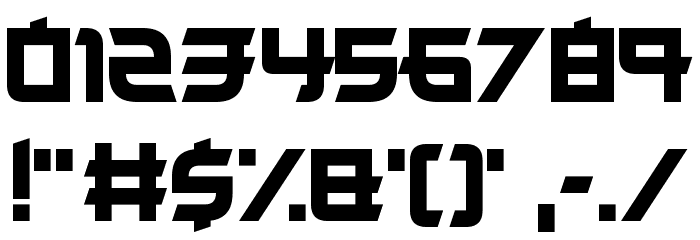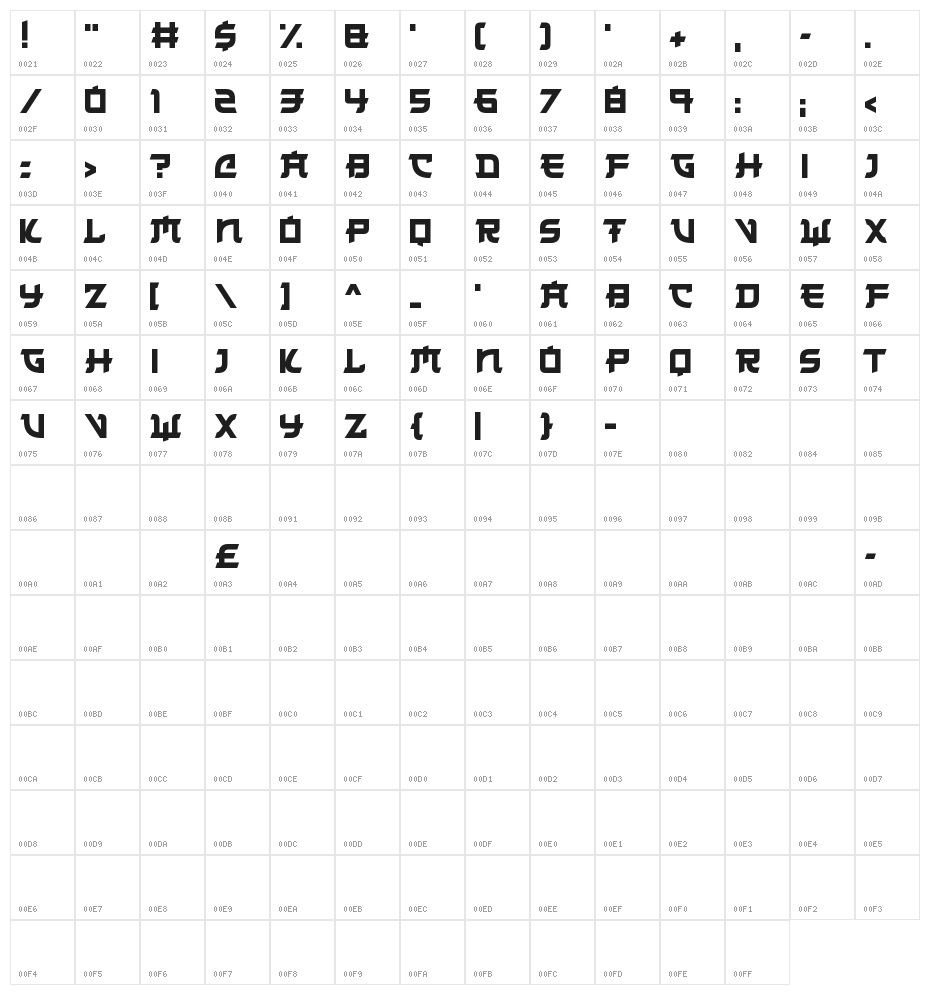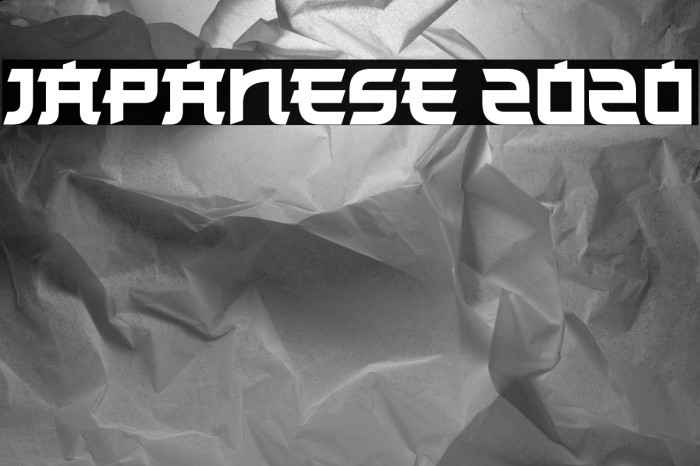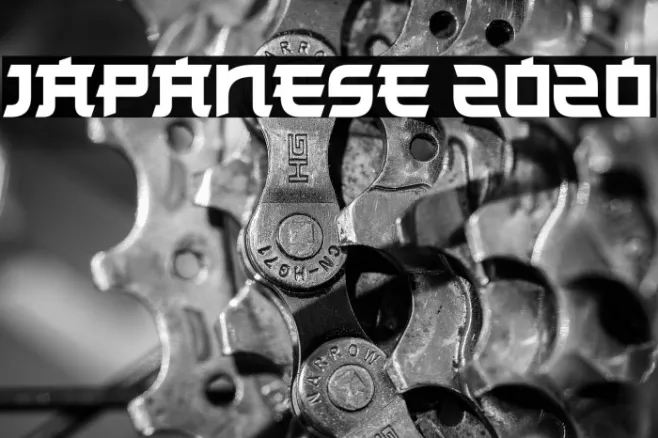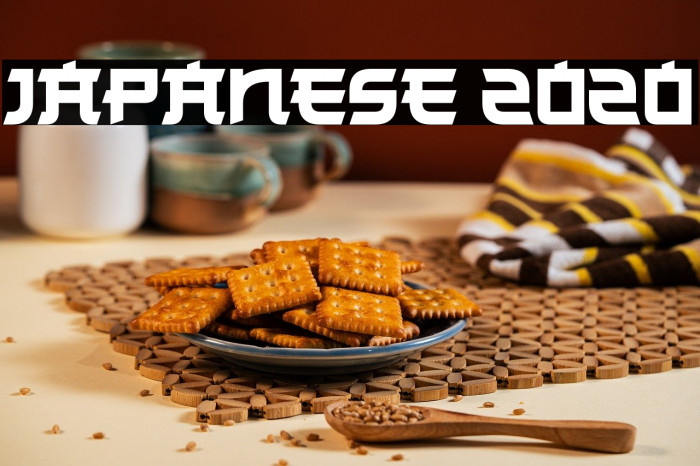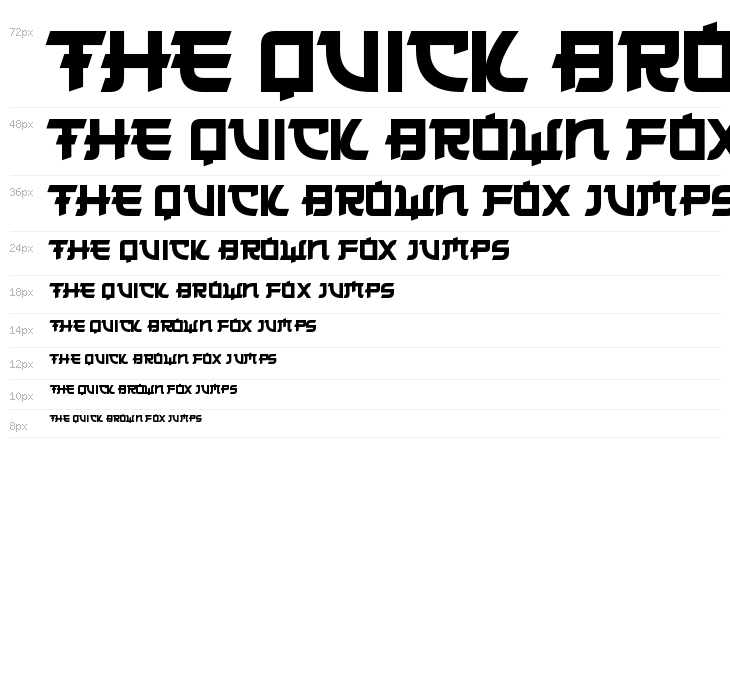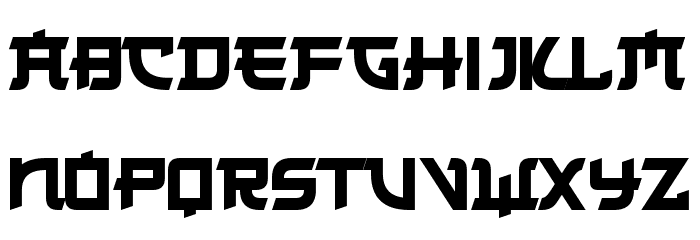
Japanese 2020 Font
Japanese 2020 Description
This font features a bold, geometric style with a futuristic and angular design. The characters are constructed with sharp edges and a distinct block-like appearance, reminiscent of digital or sci-fi aesthetics. The uppercase and lowercase letters maintain a consistent width, creating a uniform look across the typeface. The numerals and special characters follow the same design principles, ensuring cohesion throughout. This font's unique style makes it stand out, with a modern twist that could be used to convey a sense of innovation and technology.
| Proposed Projects | Ideal for technology branding, sci-fi movie posters, video game titles, and digital art projects. |